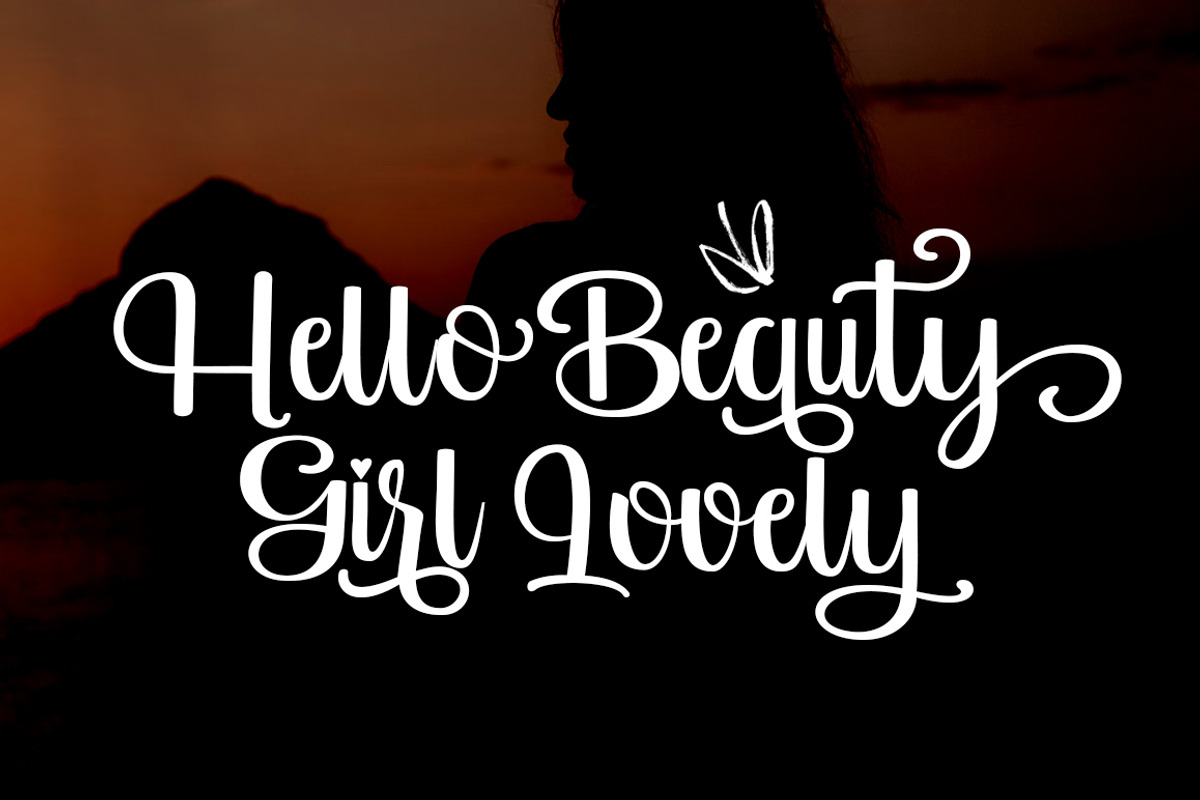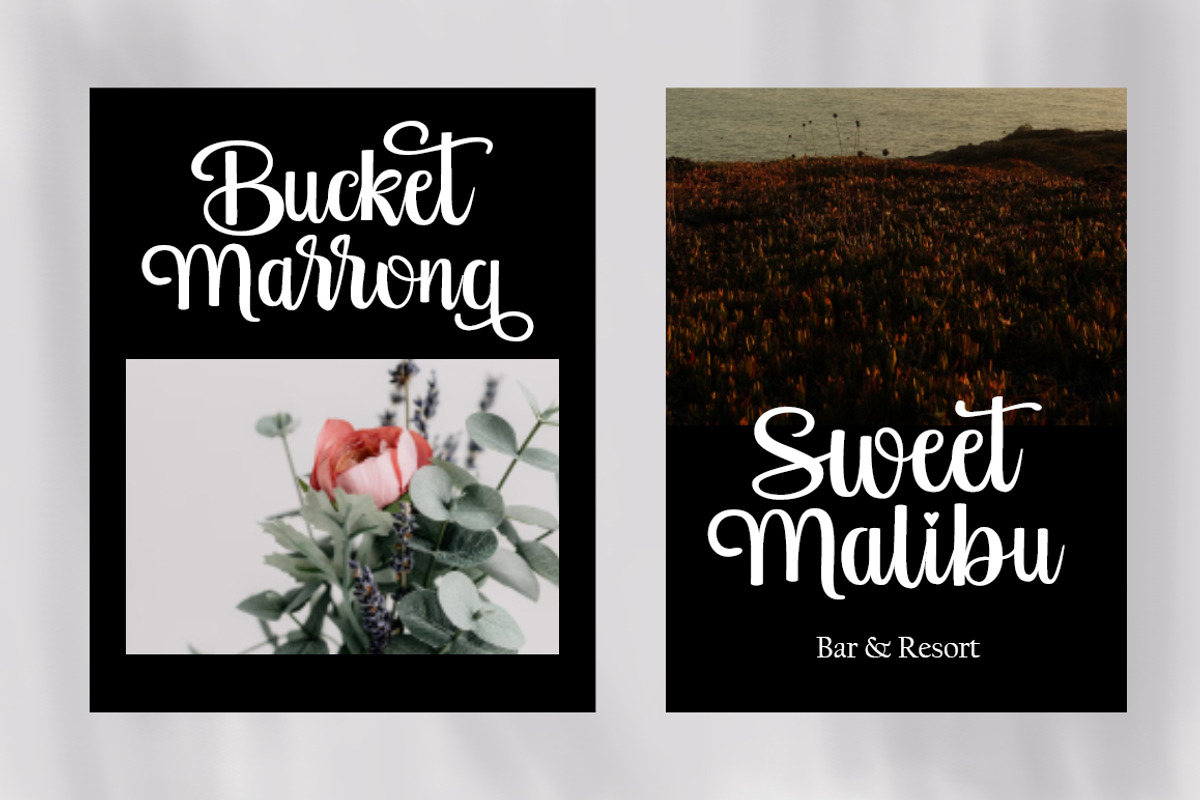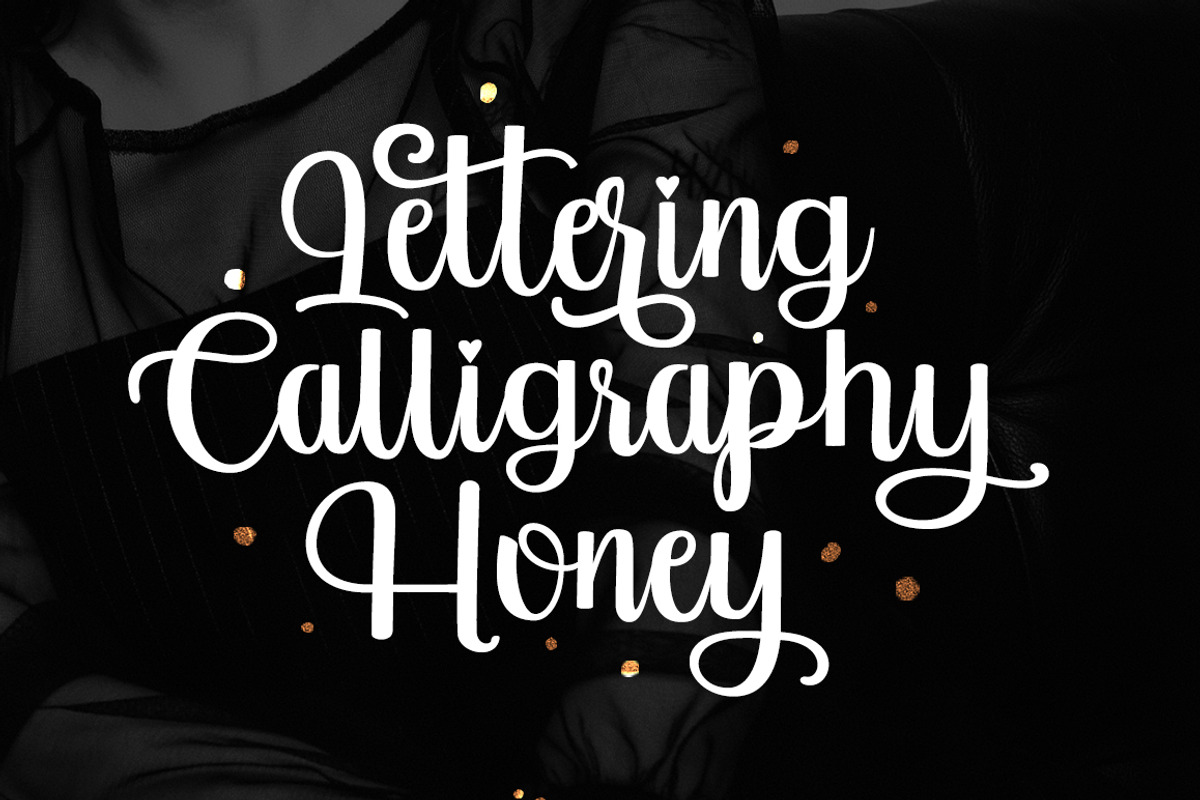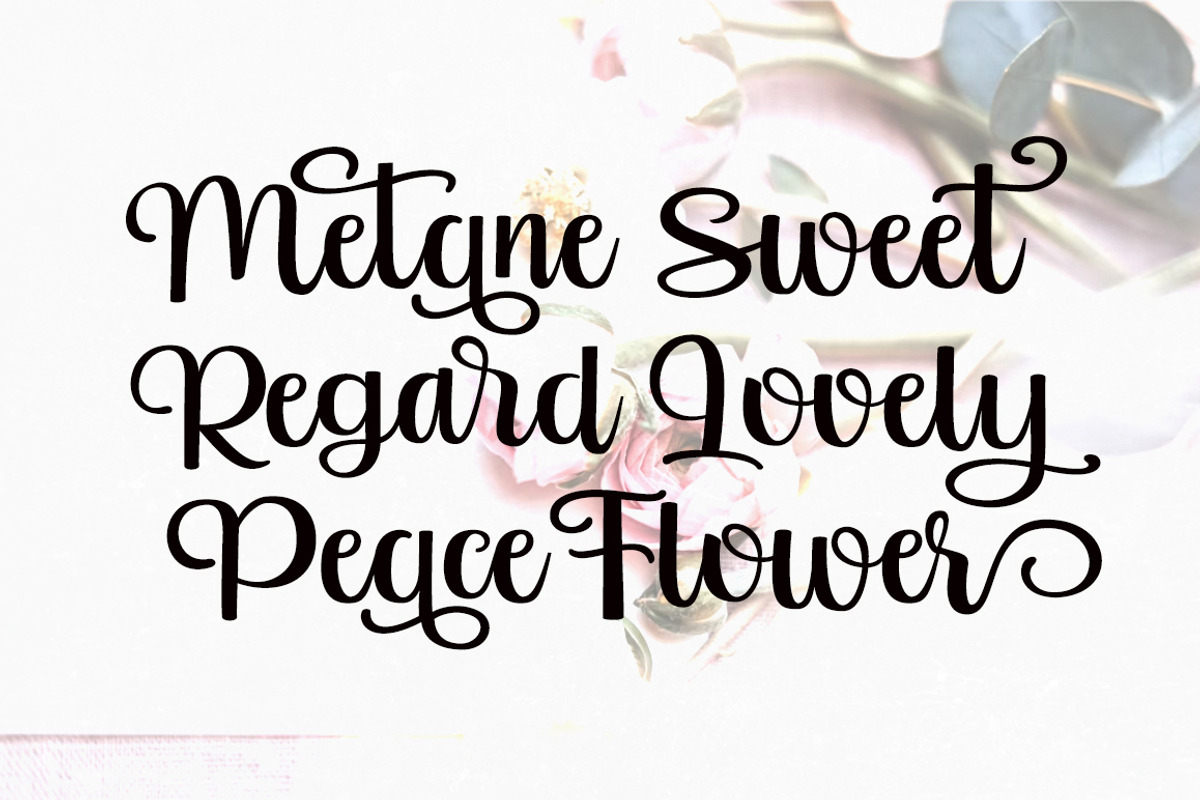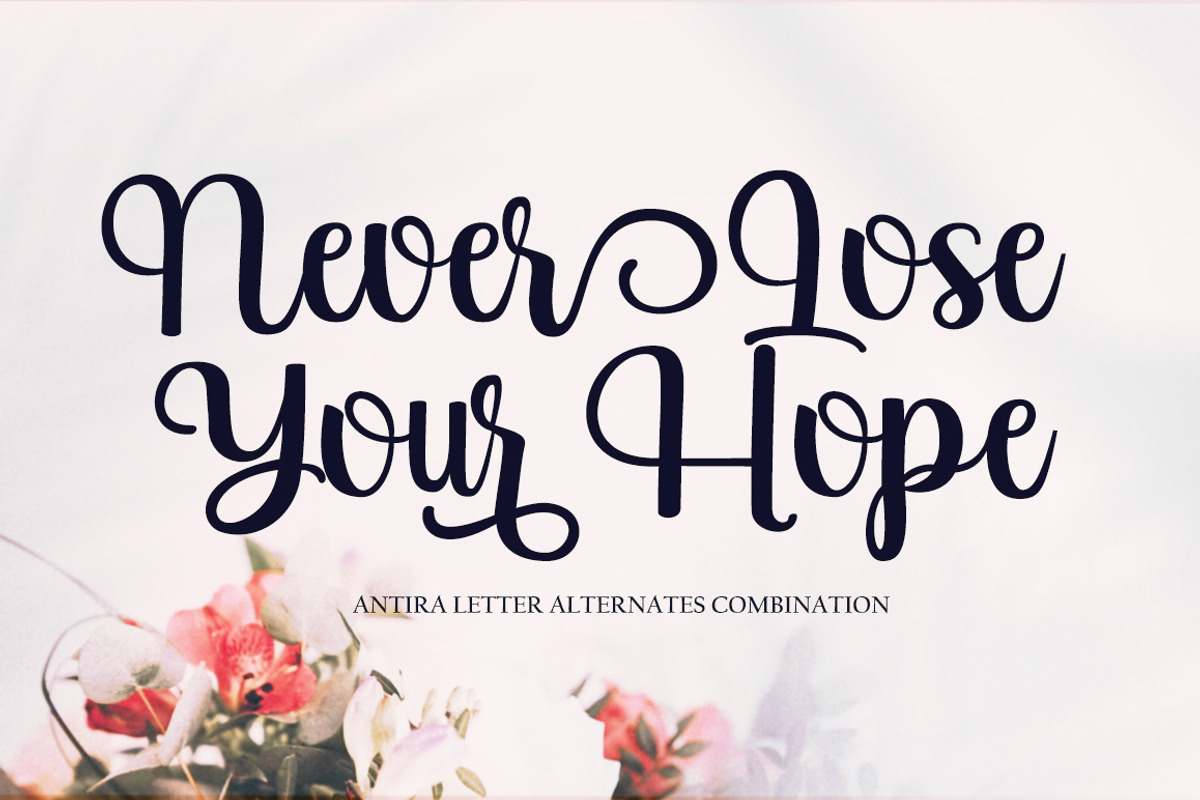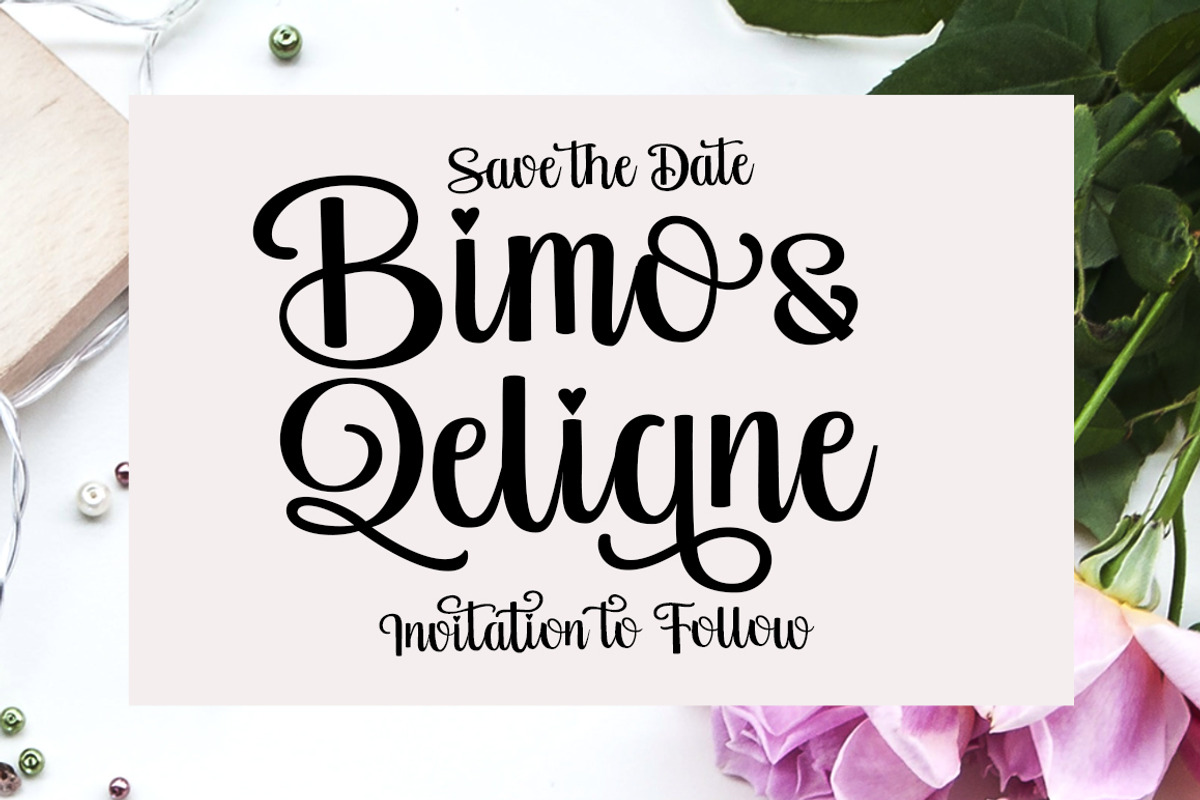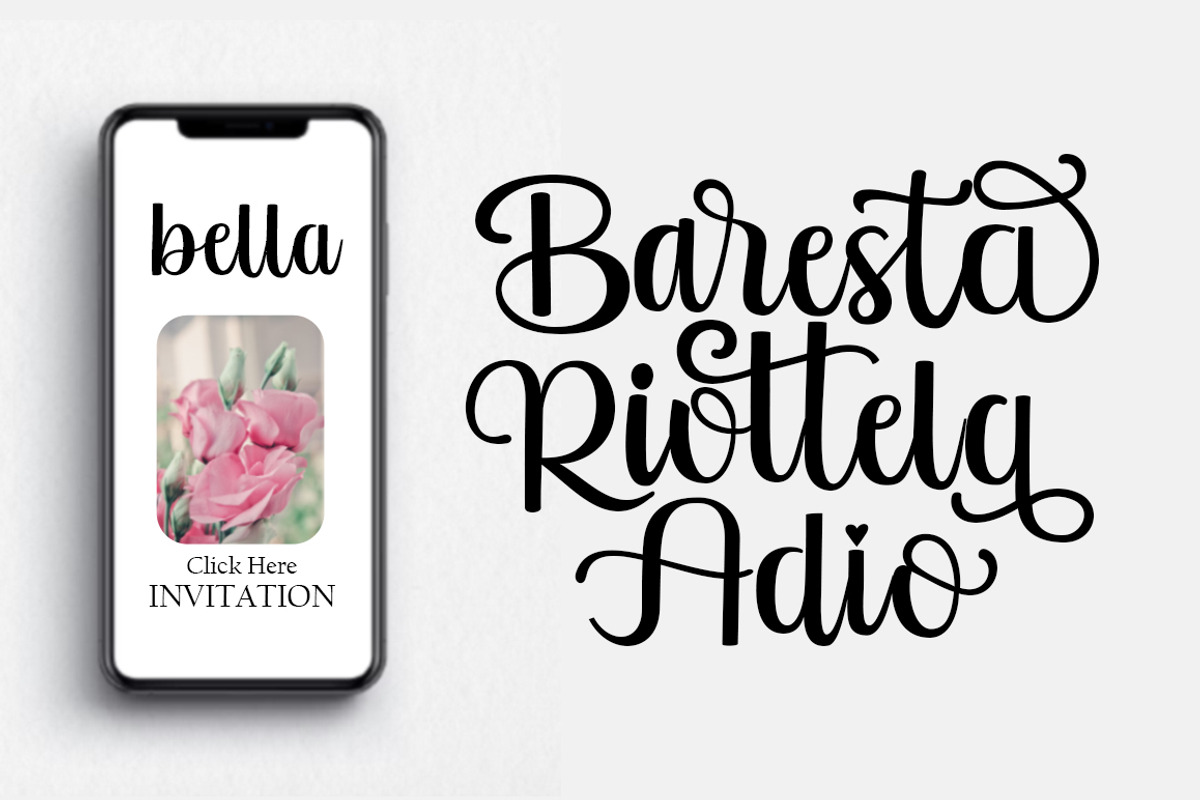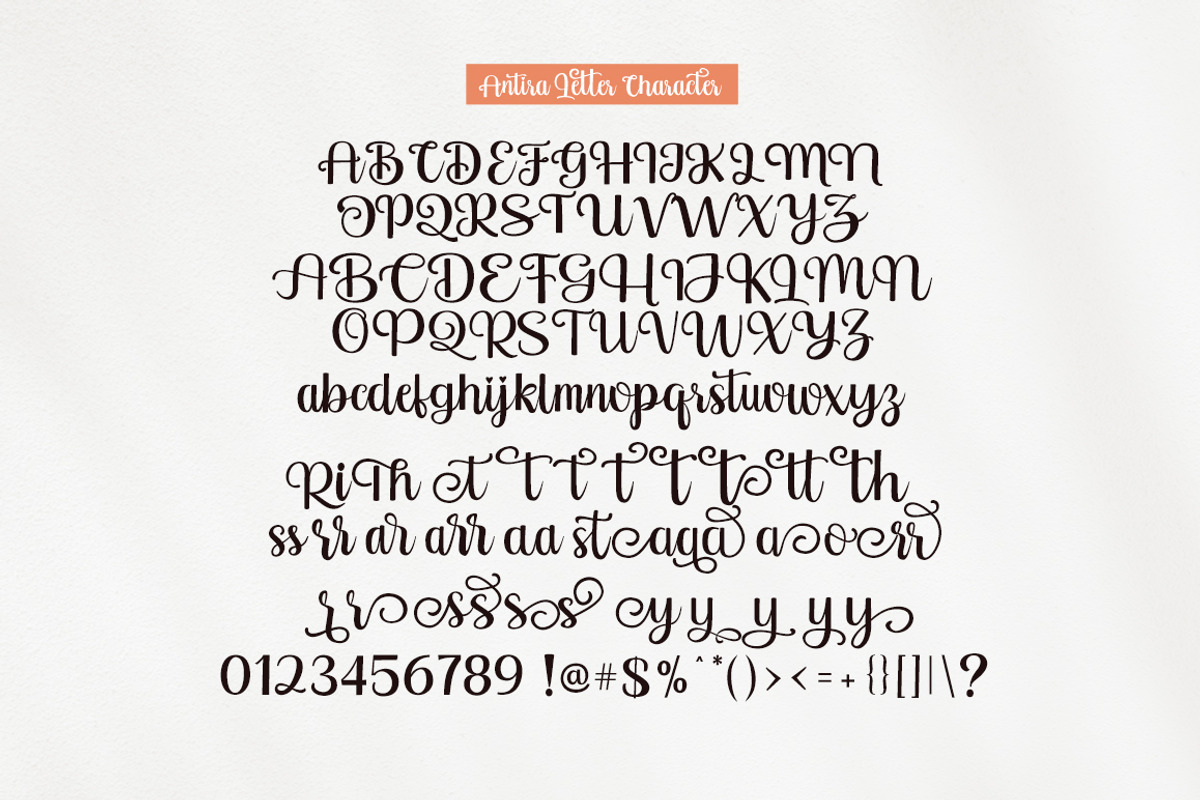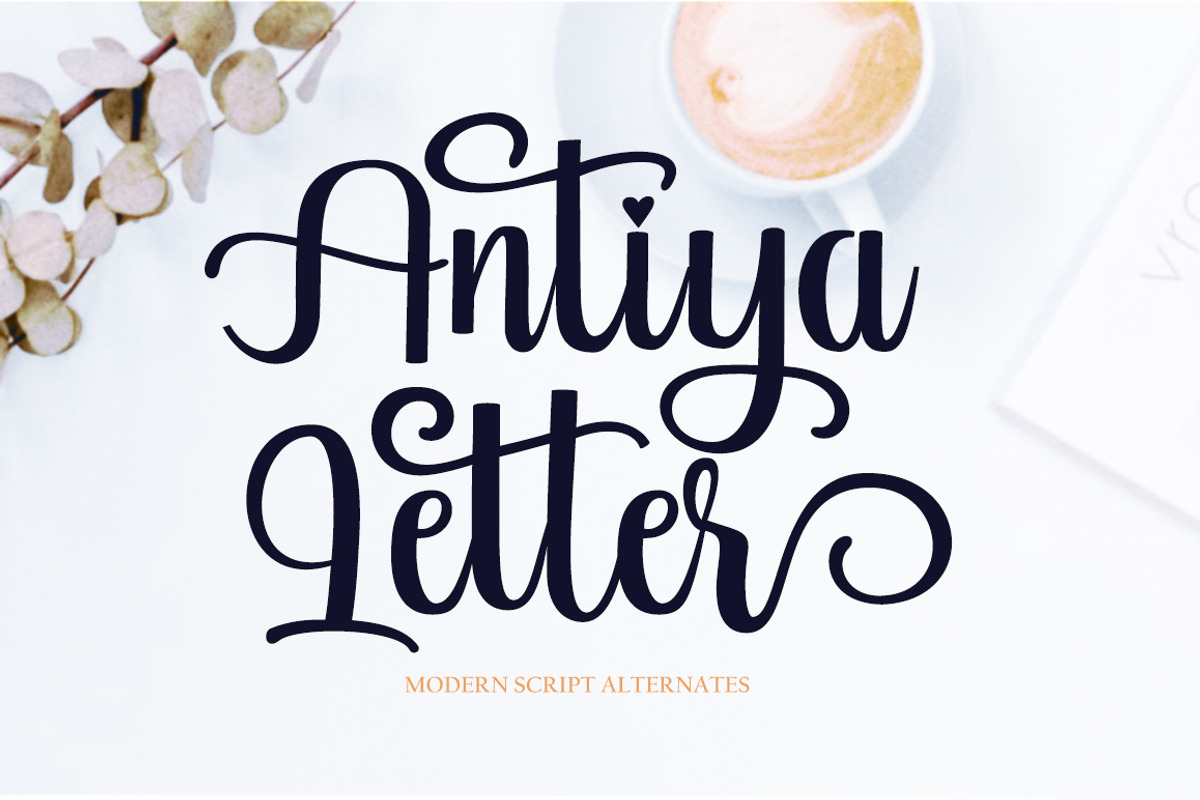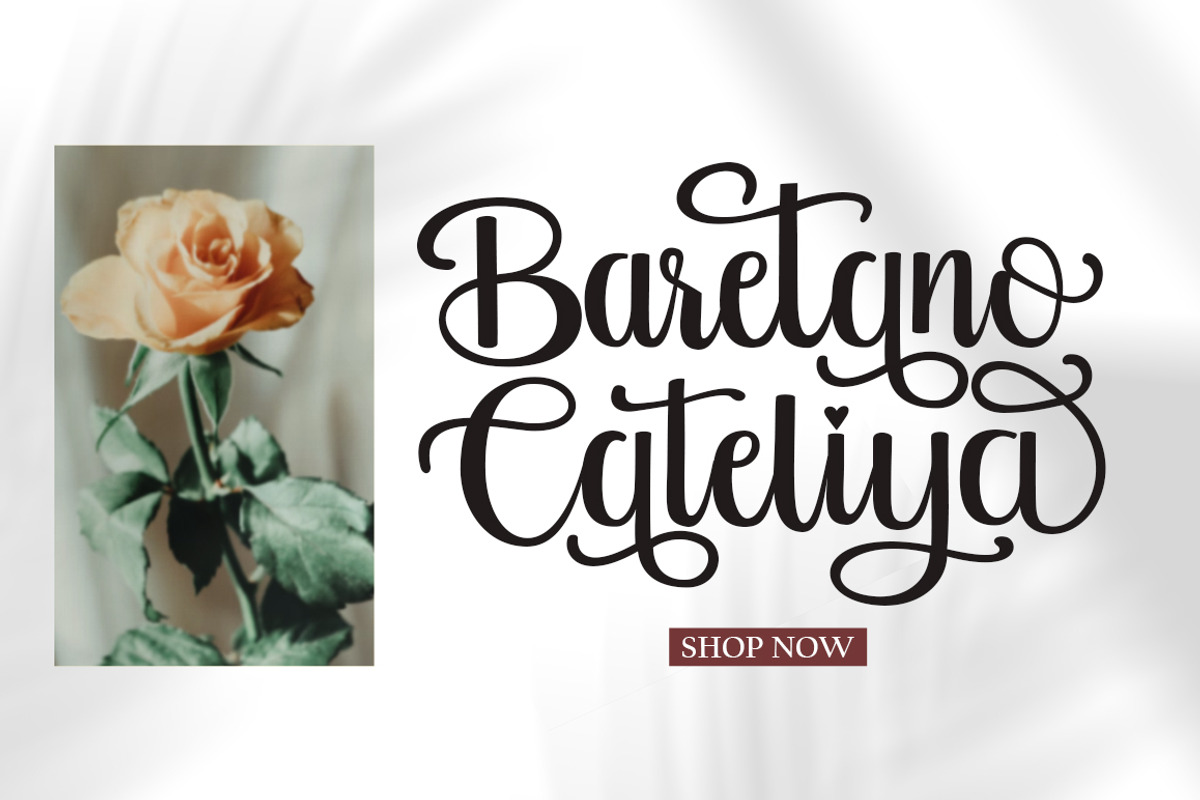
Antira Letter
Antira Letter is a natural handwritten font, it is perfect for logos, invitations, stationery, wedding designs, social media posts, advertisements, product packaging, product design, labels, photography, watermarks, special events or anything else.
Antira Letter comes with a full set of uppercase and lowercase letters, lowercase strokes, multilingual symbols, numbers, punctuation and literature.